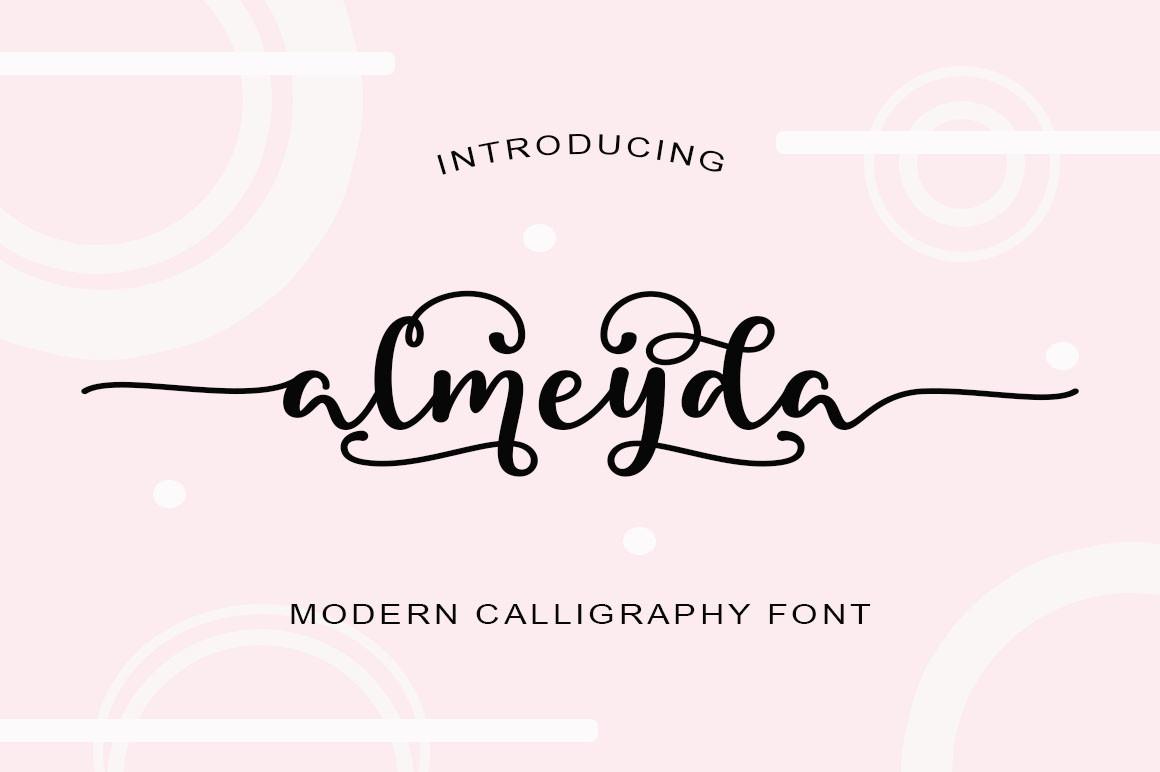
Almeyda Font Description
Almeyda is an elegant and dainty handwritten font that features sweet and delicate swashes. This original look will appeal to a wide range of crafty ideas, from letterheads and titles, to stationery. Almeyda is PUA encoded which means you can access all glyphs and swashes with ease!